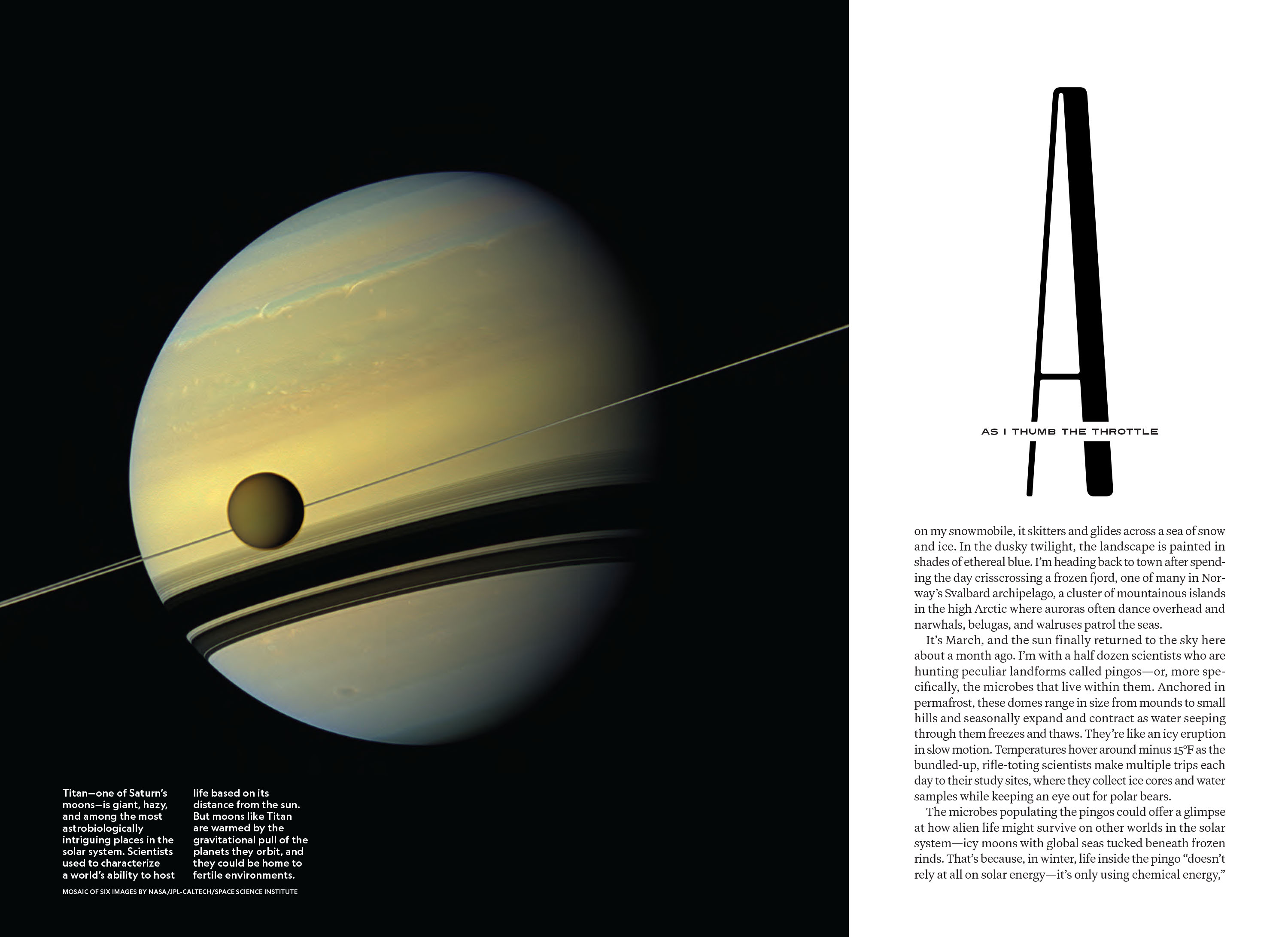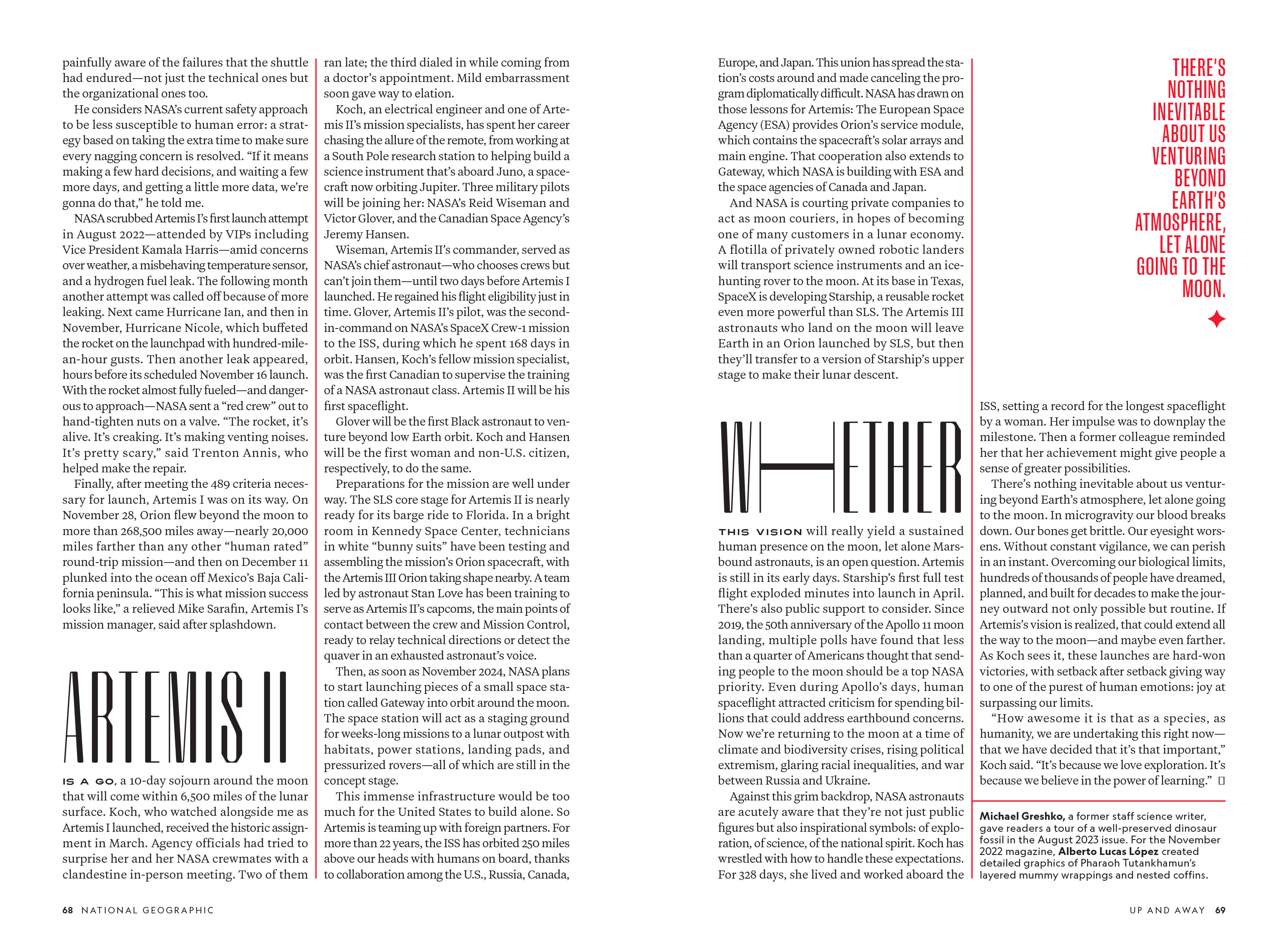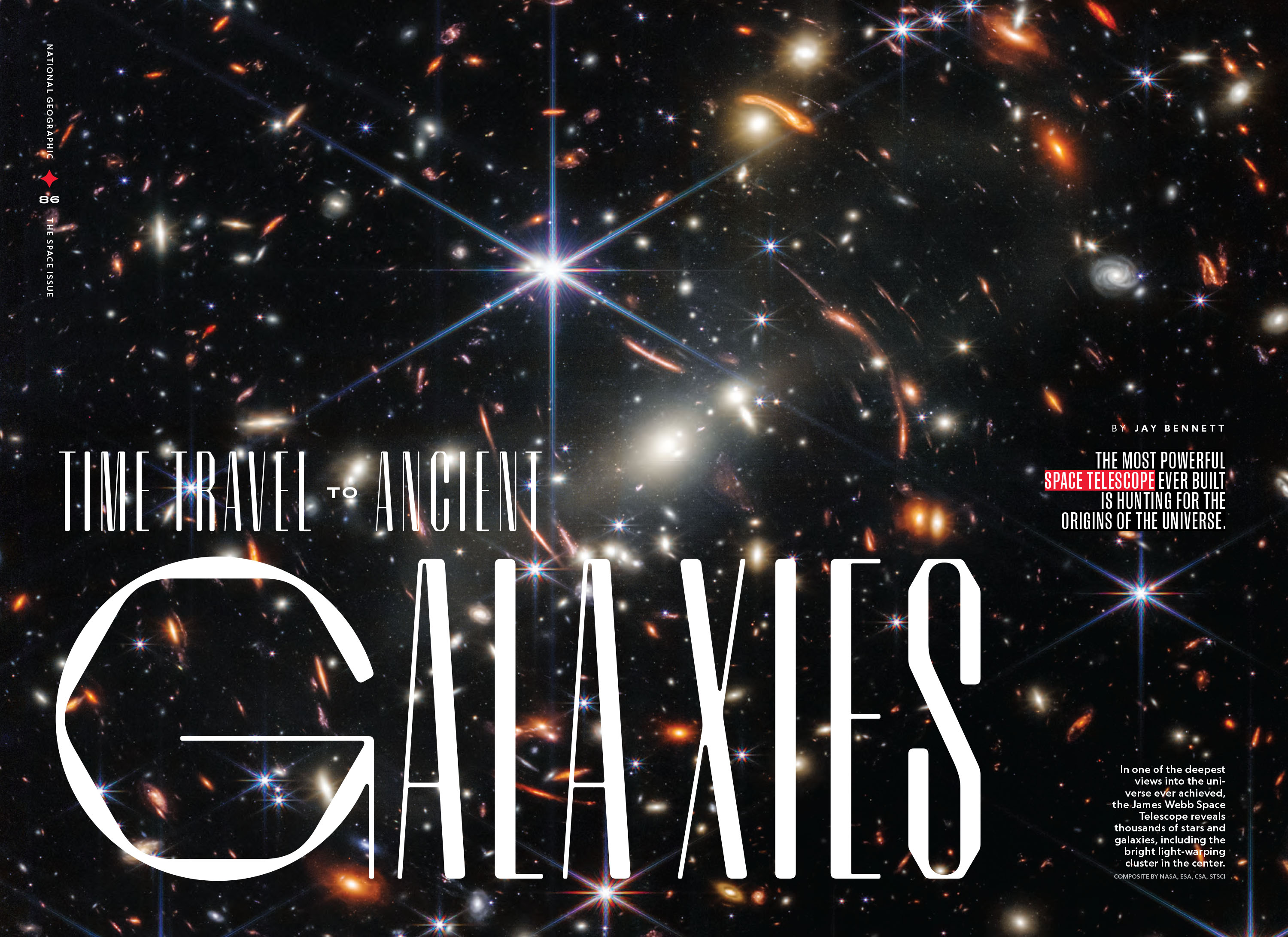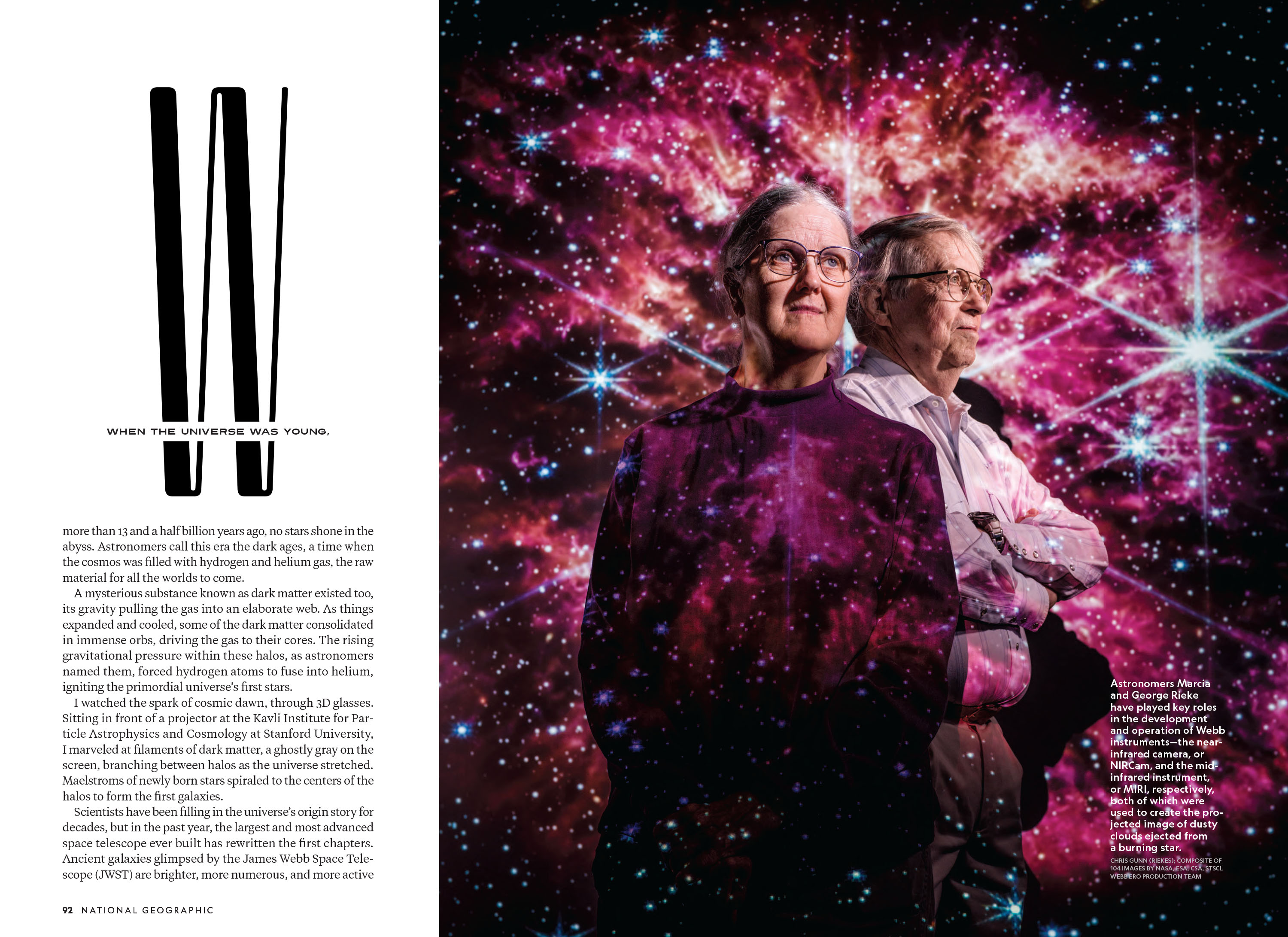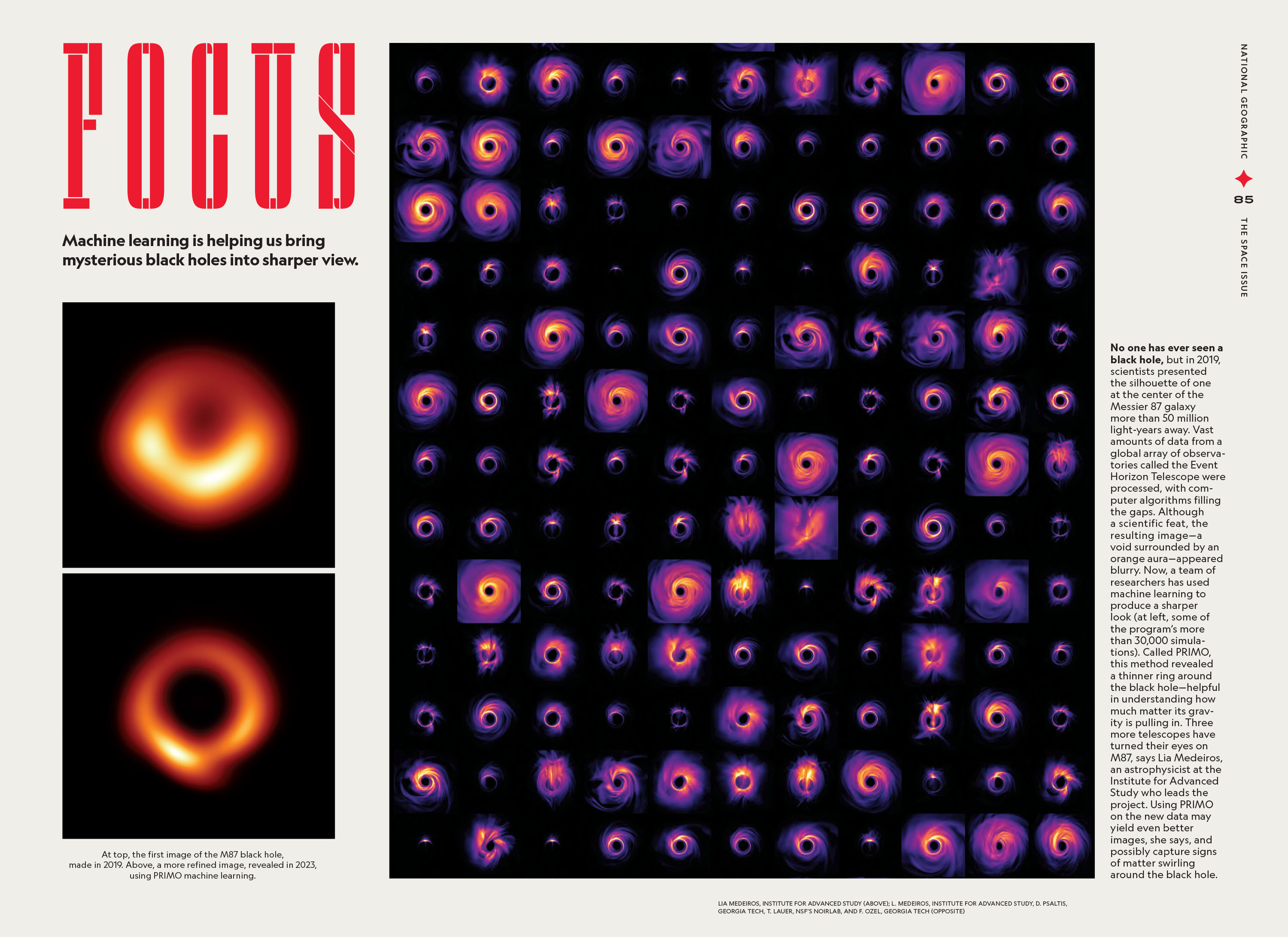
Hilary VanWright asked me to create a headline typeface for a special issue on the future of space exploration. I was inspired by the way that our spacecraft are constructed of a nearly endless nest of interlocking parts. I thought it would be interesting to try to build letterforms this way instead of thinking of them as written, gestural forms. I studied the details in the photographs for the issue, paying particular attention to the Space Launch System vehicles and Artemis program spacesuits. I used these details to build a suite of parts from which I could assemble letters. I ended up making Hilary two different typefaces, one for the stories about the goals of missions and second for explaining the engineering being used for the missions.